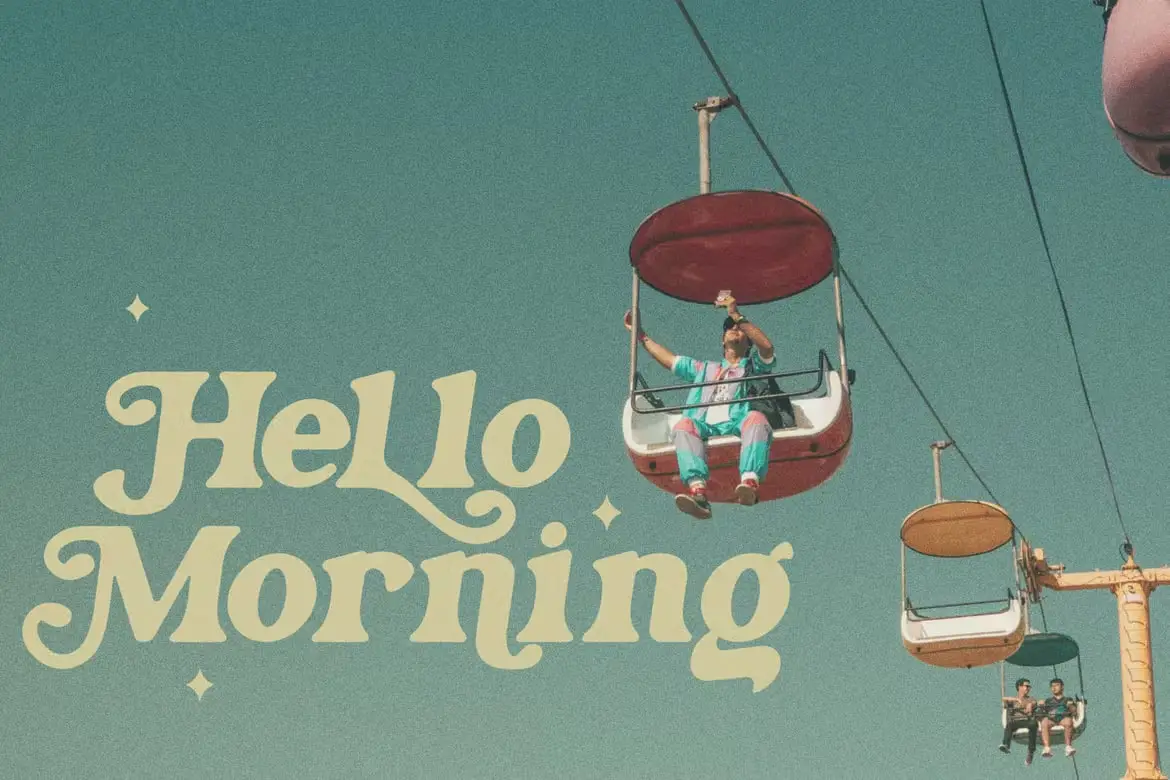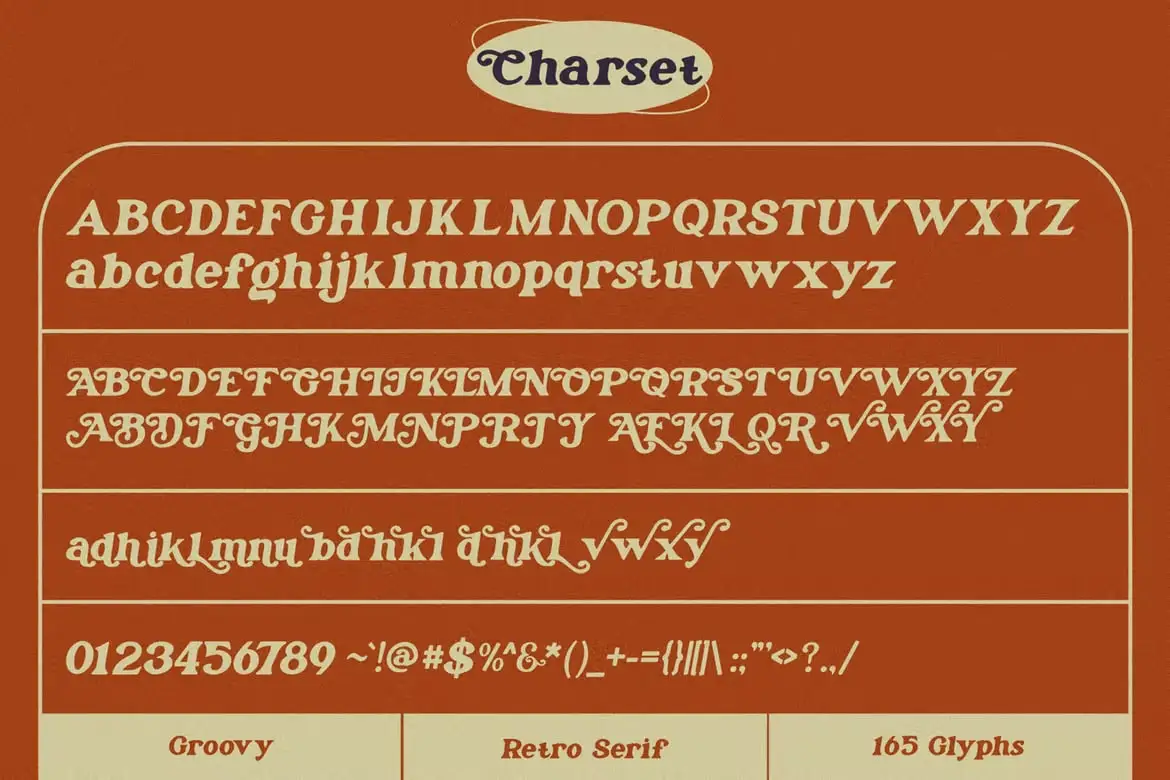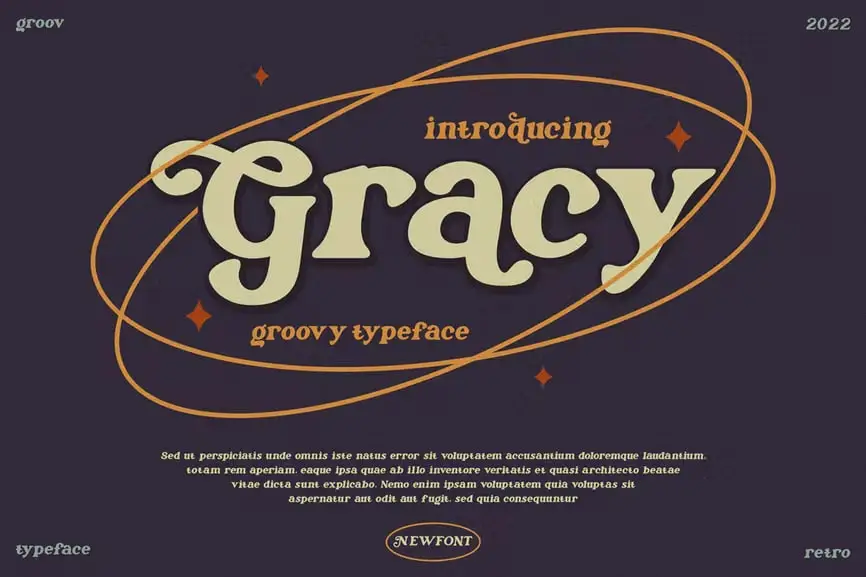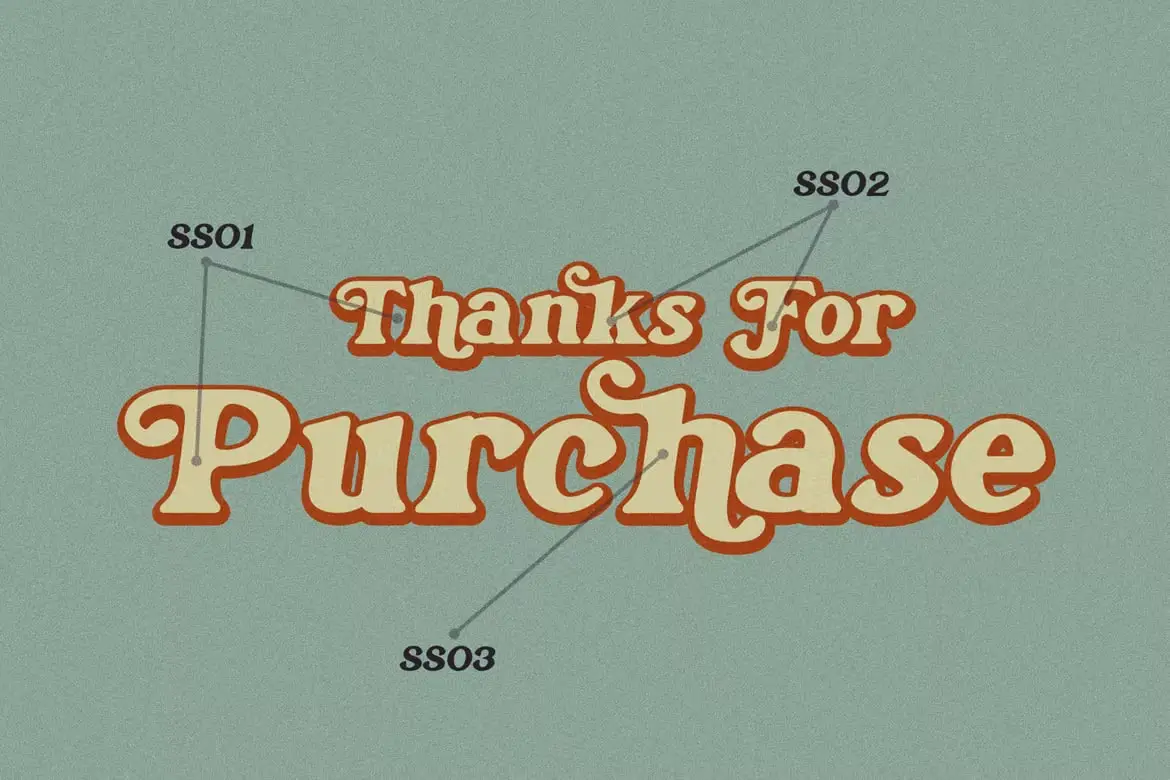
The Gracy-Groovy Typeface is a unique and playful font designed to add a touch of whimsy to your projects. With its rounded edges and dynamic letterforms, this typeface is perfect for branding, logos, and creative web design.
- Stylish and modern design
- Uppercase and lowercase letters included
- Supports a wide range of special characters
- Weights: Regular, Bold
- Ideal for playful branding and marketing materials
- Use in web design for eye-catching headings
- Perfect for print projects like posters and flyers